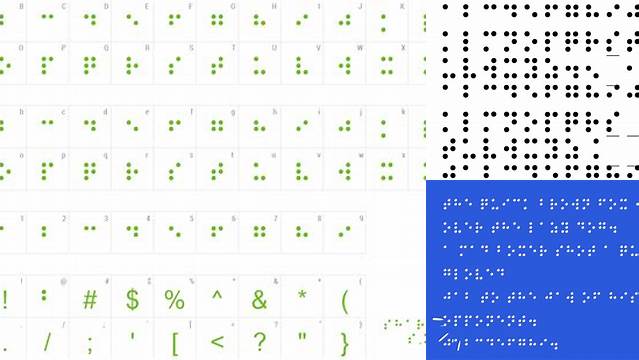
SD Pharma Braille Font: Free Download & Guide
1. Introduction to SD Pharma Braille Font: Accessibility Redefined
Hey everyone, let's dive into the world of the SD Pharma Braille Font! This font isn't just any typeface; it's a gateway to accessibility, meticulously designed to help visually impaired individuals access crucial pharmaceutical information. With the increasing emphasis on inclusivity, understanding and utilizing tools like this is more important than ever. Imagine the impact of providing clear, legible information on medication labels, ensuring that everyone can safely and independently manage their health. That's the power of SD Pharma Braille Font. SD Pharma Braille Font is a specialized typeface designed to convert text into Braille, a tactile writing system used by people who are blind or visually impaired. Unlike standard fonts that rely on visual cues, Braille fonts are composed of raised dots that can be felt, allowing users to read and understand the information. This is particularly vital in sectors where accuracy is paramount, such as pharmaceuticals. The use of SD Pharma Braille Font in this sector helps in providing medicine labels and instructions in an accessible format for people who have visual impairments. The importance of this font also extends to the aspect of independence, enabling users to manage their healthcare with greater autonomy. With this font, people can read information like dosage instructions, active ingredients, and expiry dates. This enhances patient safety and minimizes the possibility of medication errors. SD Pharma Braille Font is available for free download, this is great news. Many companies provide their fonts for free, demonstrating their commitment to improving accessibility. Free SD Pharma Braille Font downloads are available on various platforms, including the official website, font repositories, and design resource sites. The font is compatible with a variety of software, from word processors to specialized design programs, so it can be implemented in almost any project. Because SD Pharma Braille Font is designed for pharmaceutical purposes, its layout and design adheres to all the relevant standards. This is necessary for ensuring that the information in Braille is accurate, easy to read, and meets all of the regulatory requirements for drug labeling. SD Pharma Braille Font is much more than just a font. It is a practical solution for inclusivity and patient safety in the pharmaceutical industry. It increases healthcare accessibility, giving a great sense of independence. Using this font can help save lives by ensuring that everyone, regardless of their visual capabilities, has equal access to important health information. The availability of free download further helps to promote the adoption of this important design.
2. Why Choose SD Pharma Braille Font? Features and Benefits
So, why opt for the SD Pharma Braille Font specifically? Well, there are several compelling reasons. First and foremost, the primary benefit of this font is its focus on clarity and readability. Designed with the specific needs of visually impaired users in mind, SD Pharma Braille Font provides a tactile experience that makes information easy to understand. The dots are precisely sized and spaced, ensuring that they are easily discernible by touch. Beyond just legibility, another great feature is that it is specifically designed for the pharmaceutical industry. SD Pharma Braille Font is designed to meet all the regulations and standards for pharmaceutical labeling, ensuring compliance and safety. The font is created for information like dosage instructions, warnings, and ingredient lists. Another factor to consider is its free availability. The SD Pharma Braille Font is often available as a free download, making it accessible to businesses and individuals without any financial burden. This is a huge benefit, especially for smaller companies or those just starting. In addition to these main benefits, the SD Pharma Braille Font also tends to be user-friendly. Its design allows it to be easily implemented in various software and platforms. This flexibility allows designers and label makers to easily incorporate the font into their projects. The availability of tutorials, guides, and support resources further simplifies the adoption process. It's user-friendly. Finally, using the SD Pharma Braille Font reflects a commitment to inclusivity and social responsibility. By providing clear and accessible information, companies show that they care about all their customers. This builds brand reputation and promotes an inclusive image. By choosing SD Pharma Braille Font, organizations ensure that their products and services are accessible to everyone, increasing patient safety and helping them lead more independent lives. This font is a great tool for businesses wanting to be part of a more inclusive world, helping them meet regulatory obligations while improving the lives of those in need.
3. Understanding Braille: The Basics of Tactile Reading
Alright guys, let's get the basics down on Braille, and how it all works! Braille is a tactile writing system for people who are blind or visually impaired. It is not an entirely different language; rather, it is a way to write in existing languages using a system of raised dots. The Braille alphabet is made up of cells containing six dots arranged in two columns of three dots each. Each combination of dots represents a letter, number, punctuation mark, or even a word. The fundamental cell arrangement enables Braille to encode an extensive range of characters and symbols. Braille can also be used to represent math and scientific symbols, helping users in a variety of fields. Braille is read by running your fingers across the raised dots. The process requires a specific technique, often involving the use of both hands to move across the lines of text. The reading speed varies from person to person, but with practice, users can reach a high level of reading efficiency. Braille is not just a writing system. It also fosters literacy and independence. It gives people the ability to read books, documents, and other materials, allowing them to engage fully with the world. The impact of Braille on the visually impaired community cannot be overstated. Braille provides access to education, employment, and everyday life, helping to achieve a good sense of equality and inclusion. Braille is an essential instrument for communication and independence, from signs and labels to reading books. Braille continues to be a vital tool for many people around the world. It is a tangible representation of knowledge and independence. It empowers people to read, understand and communicate effectively.